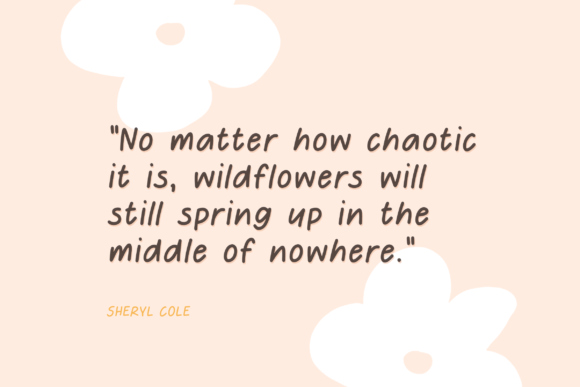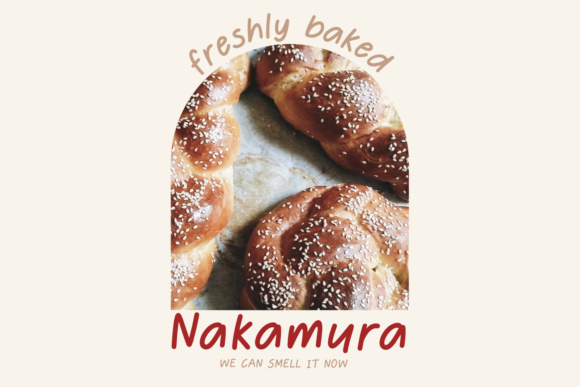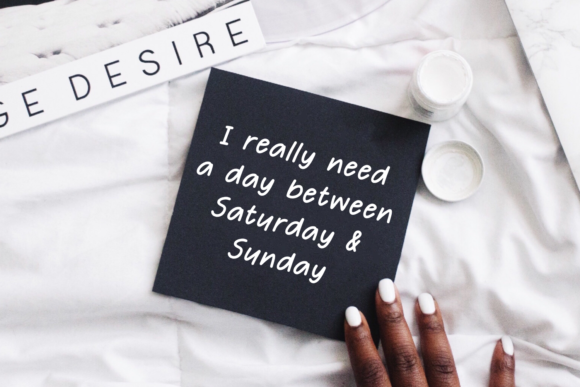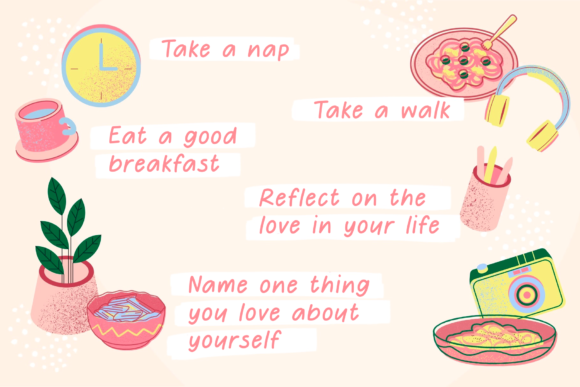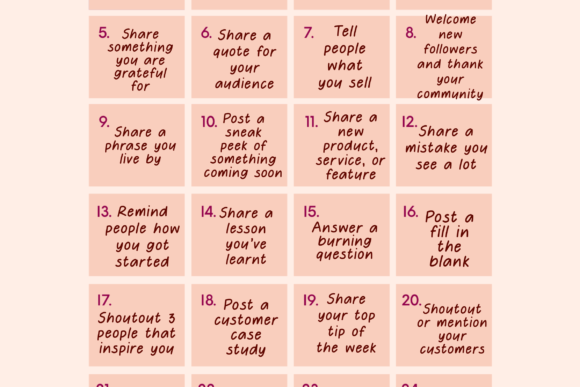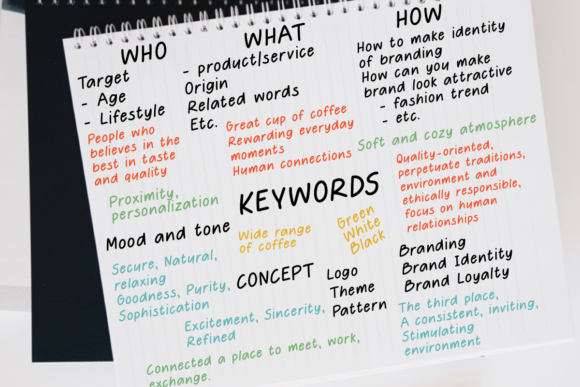
Spring Moment Font
About Spring Moment Font
Spring Moment is a simple and cute handwritten font. You can use this font in various projects such as blog posts, logos, branding, digital planner, invitations, digital bullet journal, greeting cards, planners, photo albums, decorations and much more.